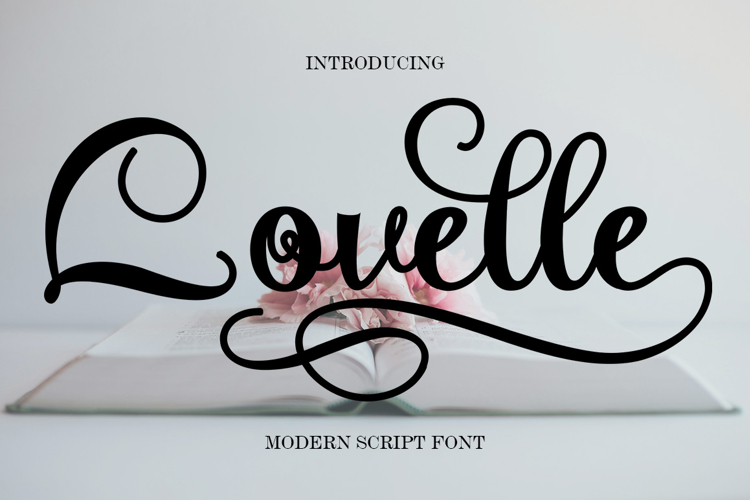
Lovelle is a luxurious calligraphy font that radiates grace and charm.
With flowing curves, elegant swashes, and refined letterforms, this typeface is designed to elevate any project with a romantic and timeless feel. Whether you’re designing wedding invitations, branding for boutique businesses, elegant logos, or high-end packaging, Lovelle brings a touch of handwritten sophistication.
The exaggerated flourishes and smooth baseline make it ideal for headings, feminine quotes, and anything that needs a soft, classic touch.
Its modern calligraphic style seamlessly combines beauty and readability, making it a go-to choice for designers seeking both flair and professionalism.
The Lovelle font is also PUA-encoded, ensuring effortless access to all glyphs, swashes, and alternate characters to help you customize your creations with ease.